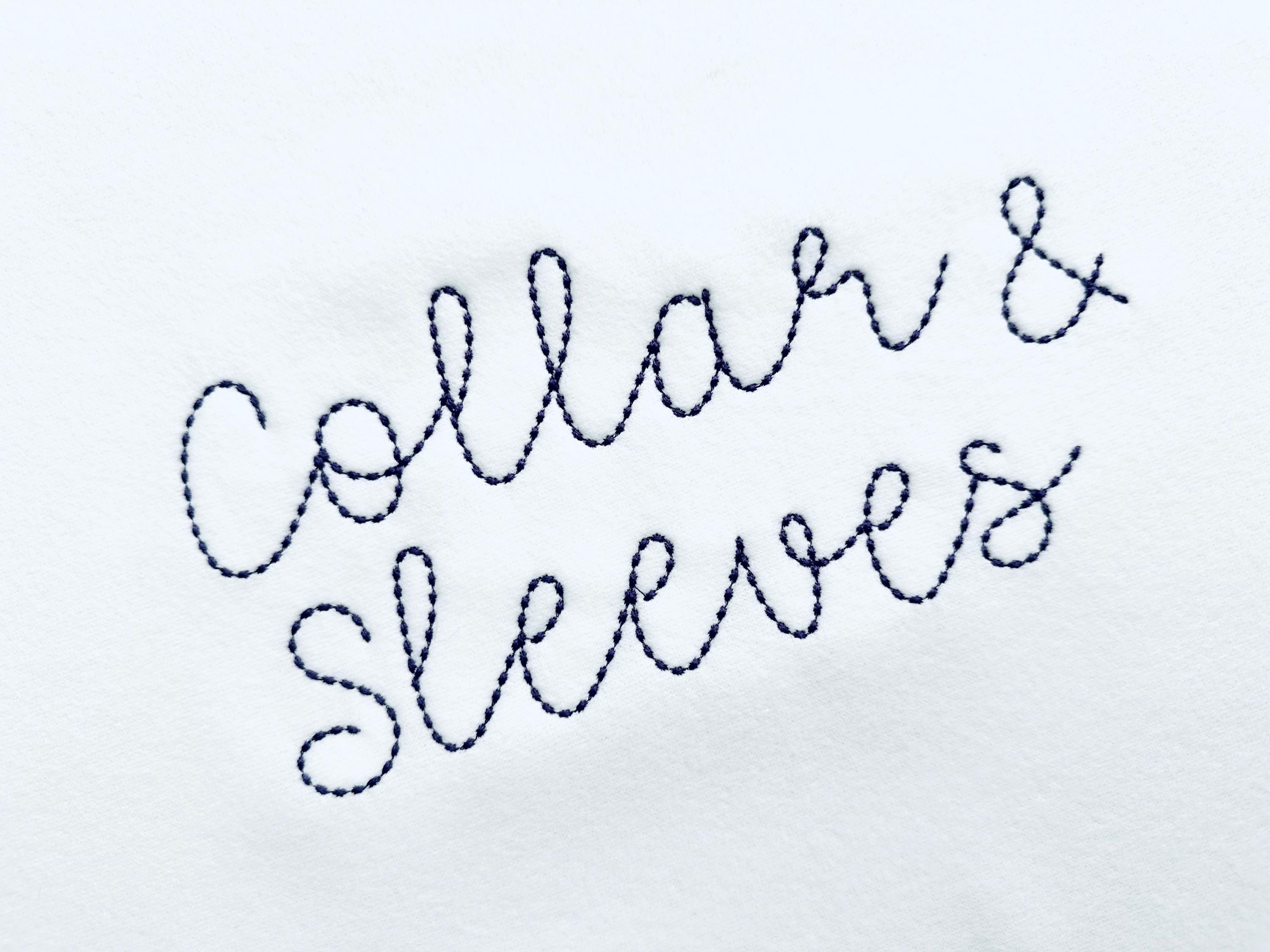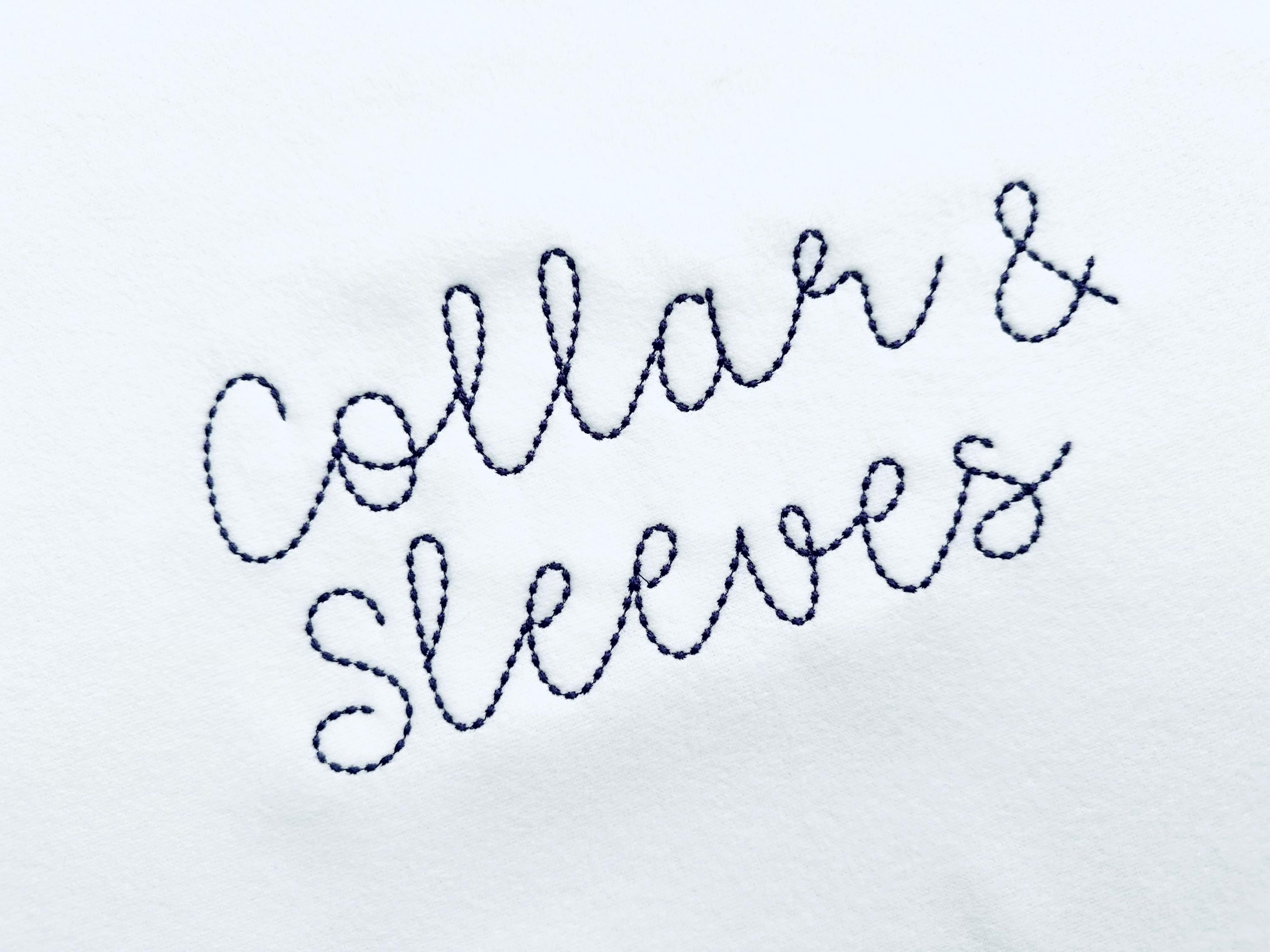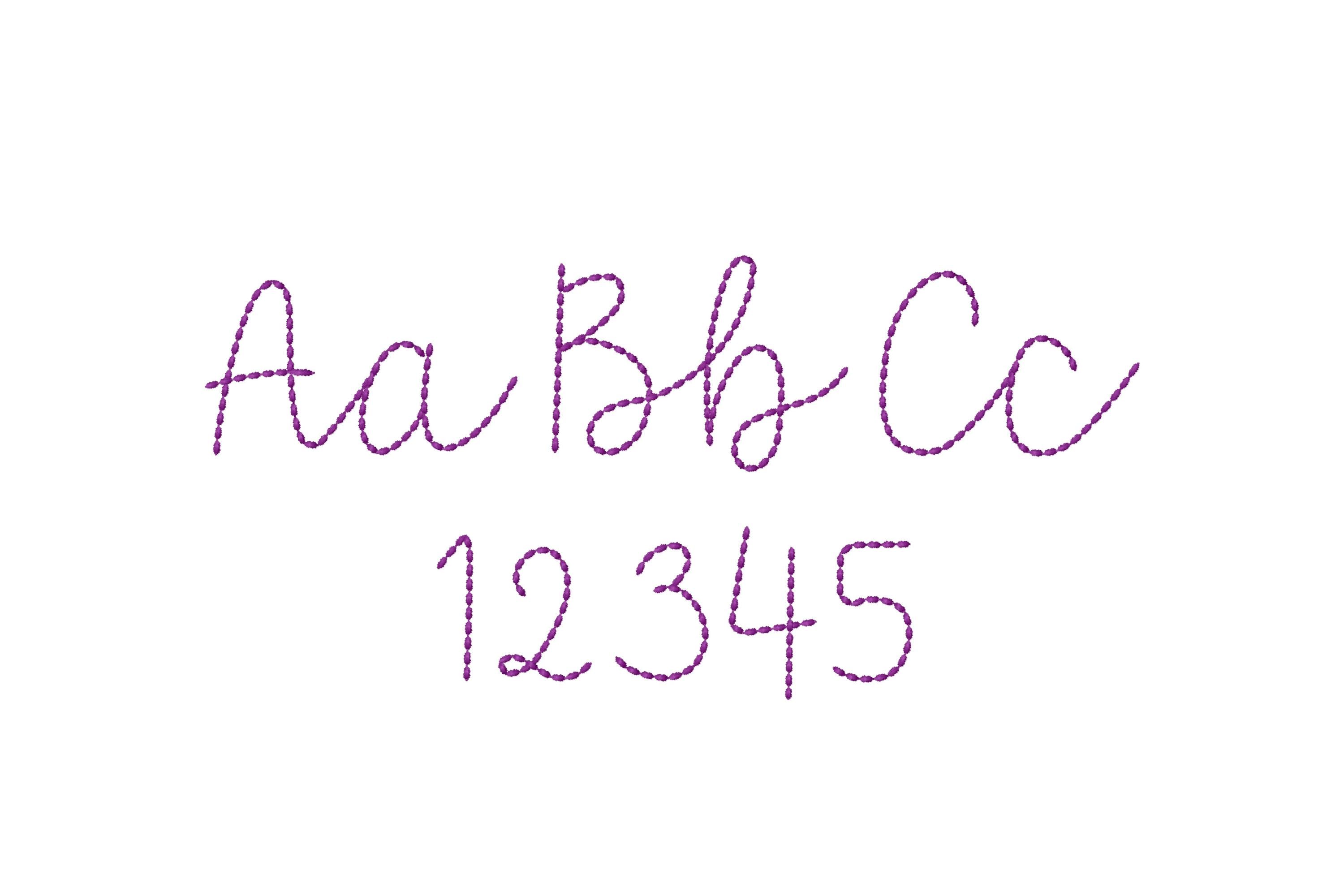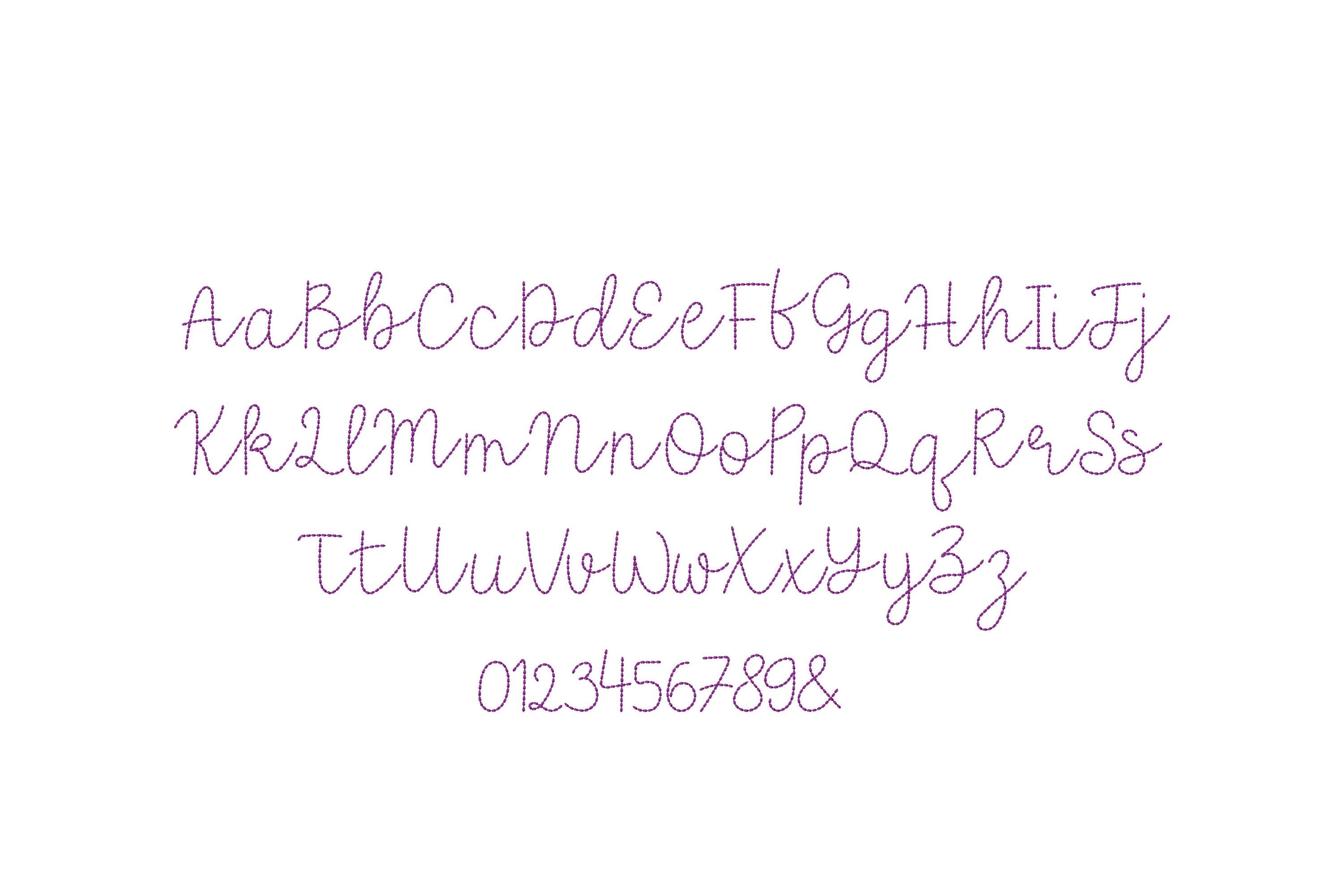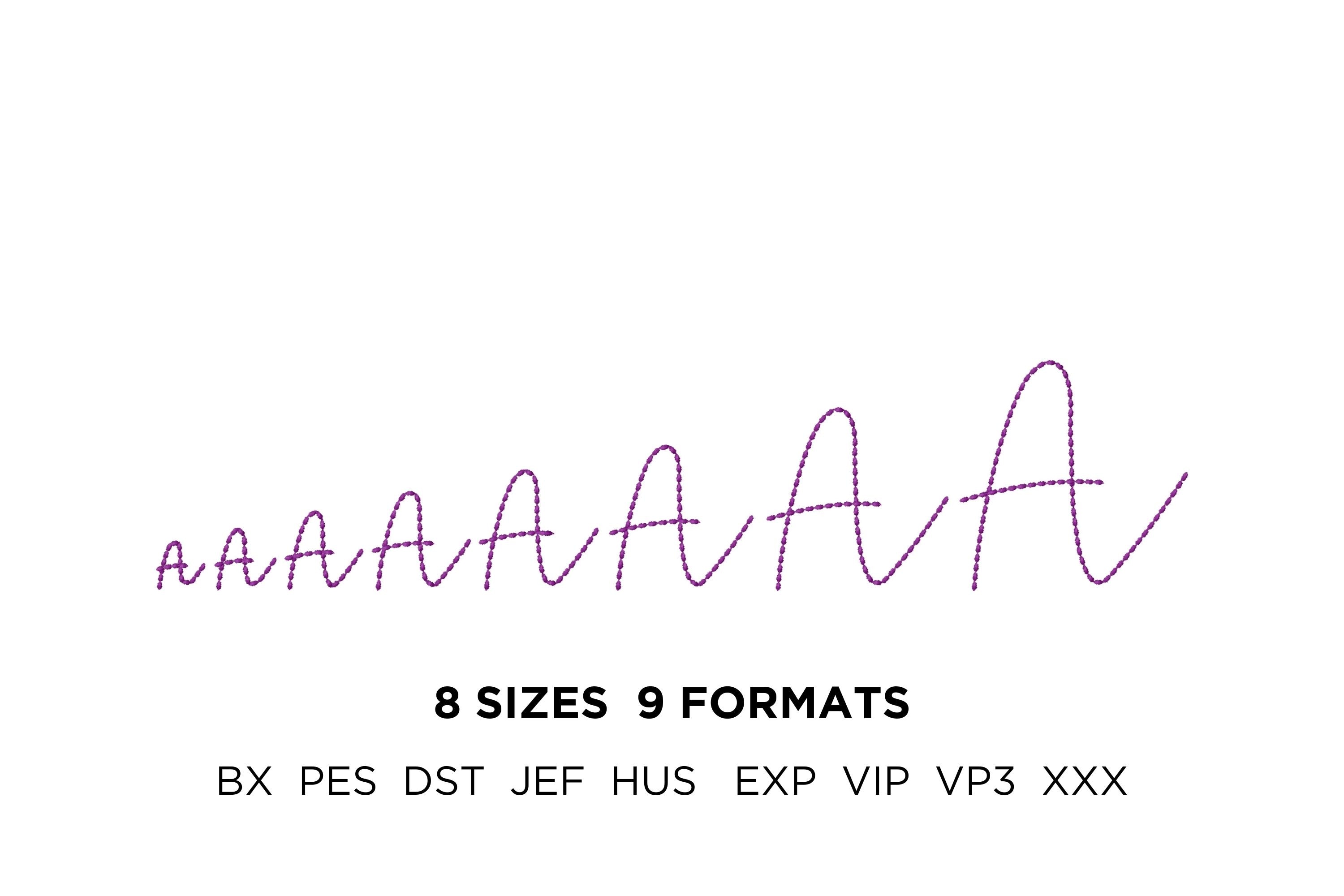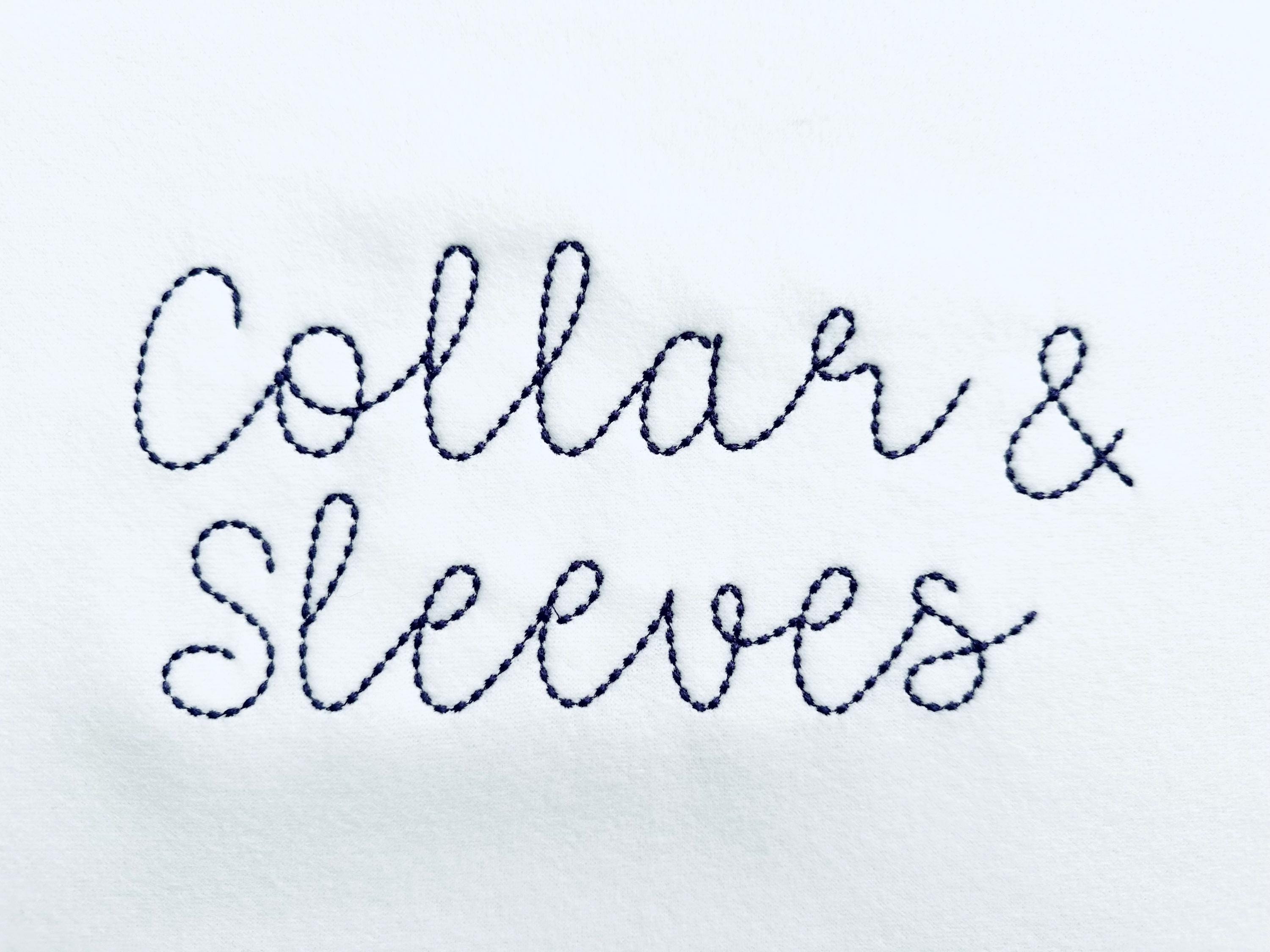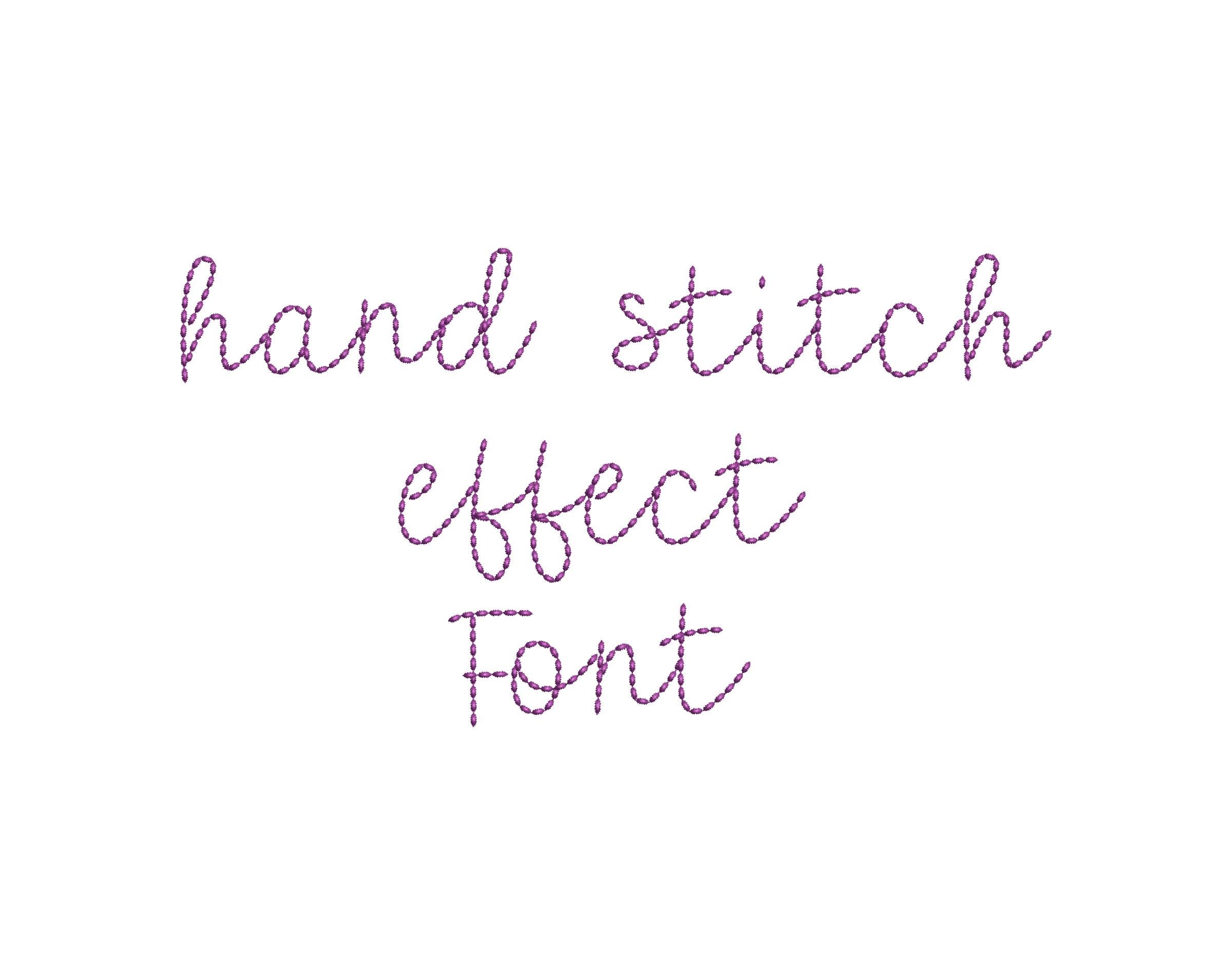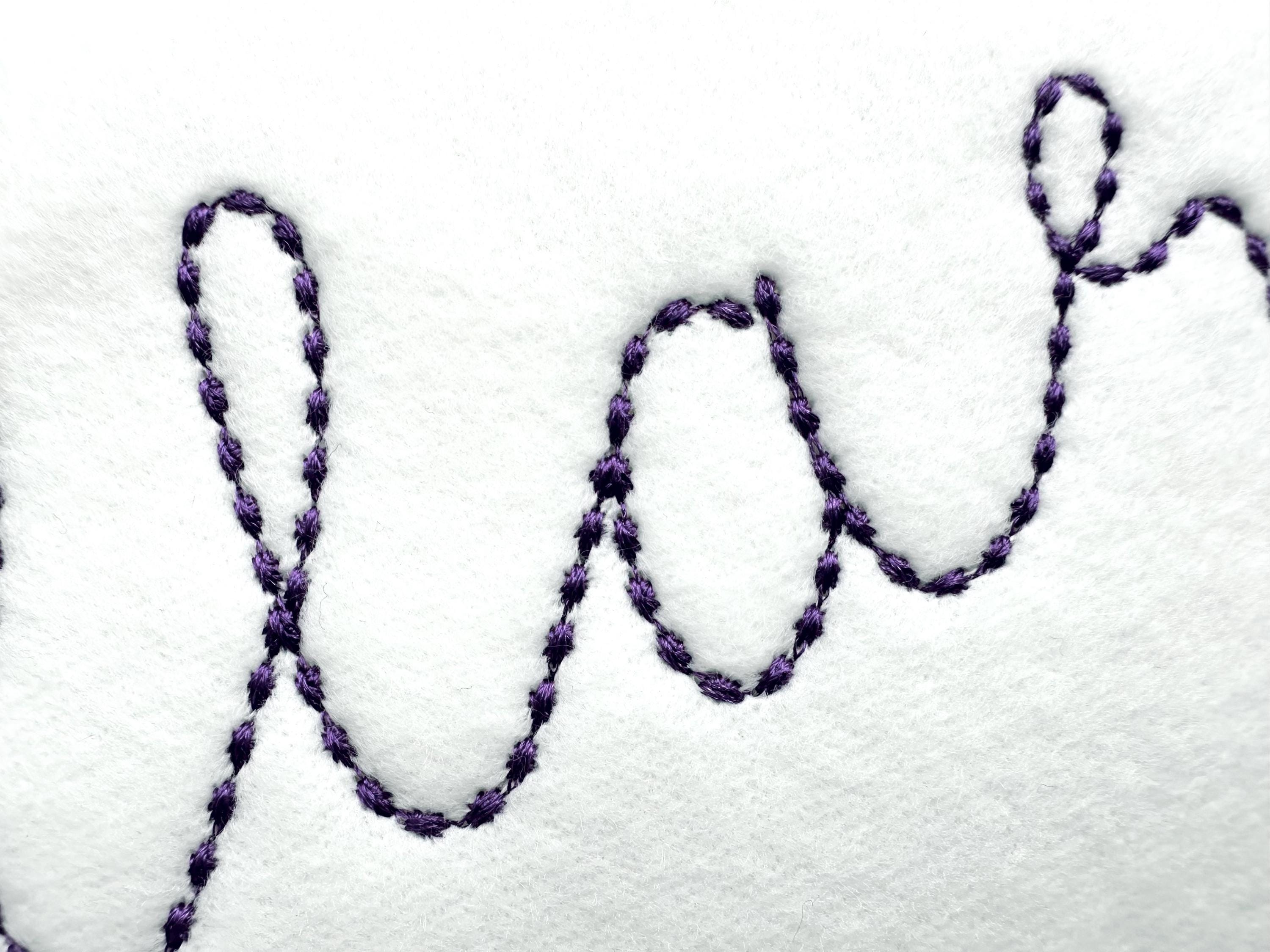
Hand stitch effect FONT Berry machine embroidery designs mini small sizes script Font Monogram alphabet letters sizes 0.8 up to 3.7 inches and BX included